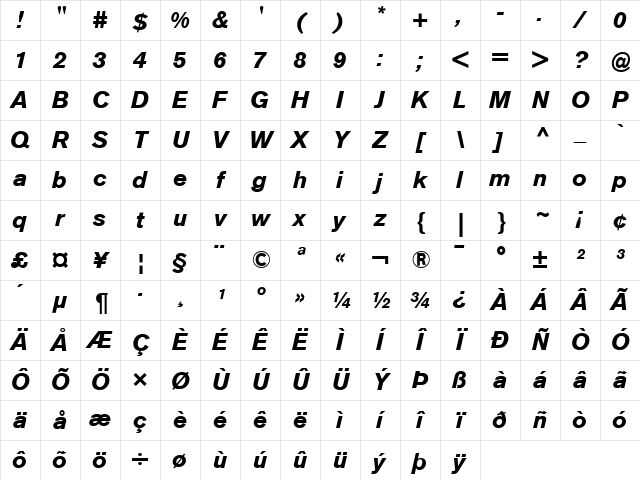
Complete Berthold Akzidenz Grotesk BE Bold Italic glyph index. Displaying only characters natively supported by Berthold Akzidenz Grotesk BE Bold Italic font.
Berthold Akzidenz Grotesk BE takes a clean, functional approach - its unadorned letterforms prioritise legibility and work reliably across screen and print environments. The slanted form adds forward momentum and visual energy. Its bold stroke weight gives it real presence on the page.
Font Pairing: Use Berthold Akzidenz Grotesk BE for headlines alongside a lighter-weight sans or serif for body copy to establish clear visual hierarchy.
Pro Tip: Use Berthold Akzidenz Grotesk BE for UI labels, navigation, and short-form body copy where clean legibility is the priority.